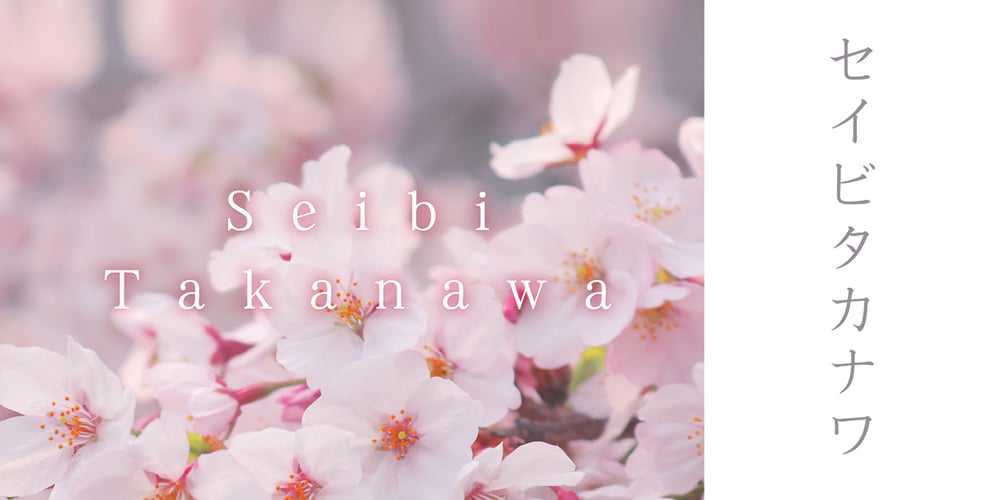
Seibi Takanawa Font Family was designed by published by Nihon Literal. Seibi Takanawa contains 4 styles and family package options. The category of font type is Kaisho-tai(square style), but it is a similar design to a textbook style with a delicate control over the sharpness of Kaisho-tai. Kanais designed somewhat larger for better line alignment in typesetting. 書体カテゴリーは楷書体ですが、楷書体のメリハリをやや押さえた教科書体に近いデザイン。仮名をやや大きめにデザインし、組み版時のライン揃えを意識しました。L(細)・M(中細)・B(太)・UB(特太)と4 つのウェイトがある楷書体シリーズですが、太さによって性格が違い、厳密にはファミリーではありません。LとMは筆のかすれなど名残を簡素にした教科書体風デザインの楷書体、Bは筆のメリハリを抑えた見出し用楷書体、UBは筆の名残を生かし、極限まで太く力強くインパクトを求めた毛筆体です。Lについては、Mに比べ若干明るく、かながやや小ぶりにデザインされています。